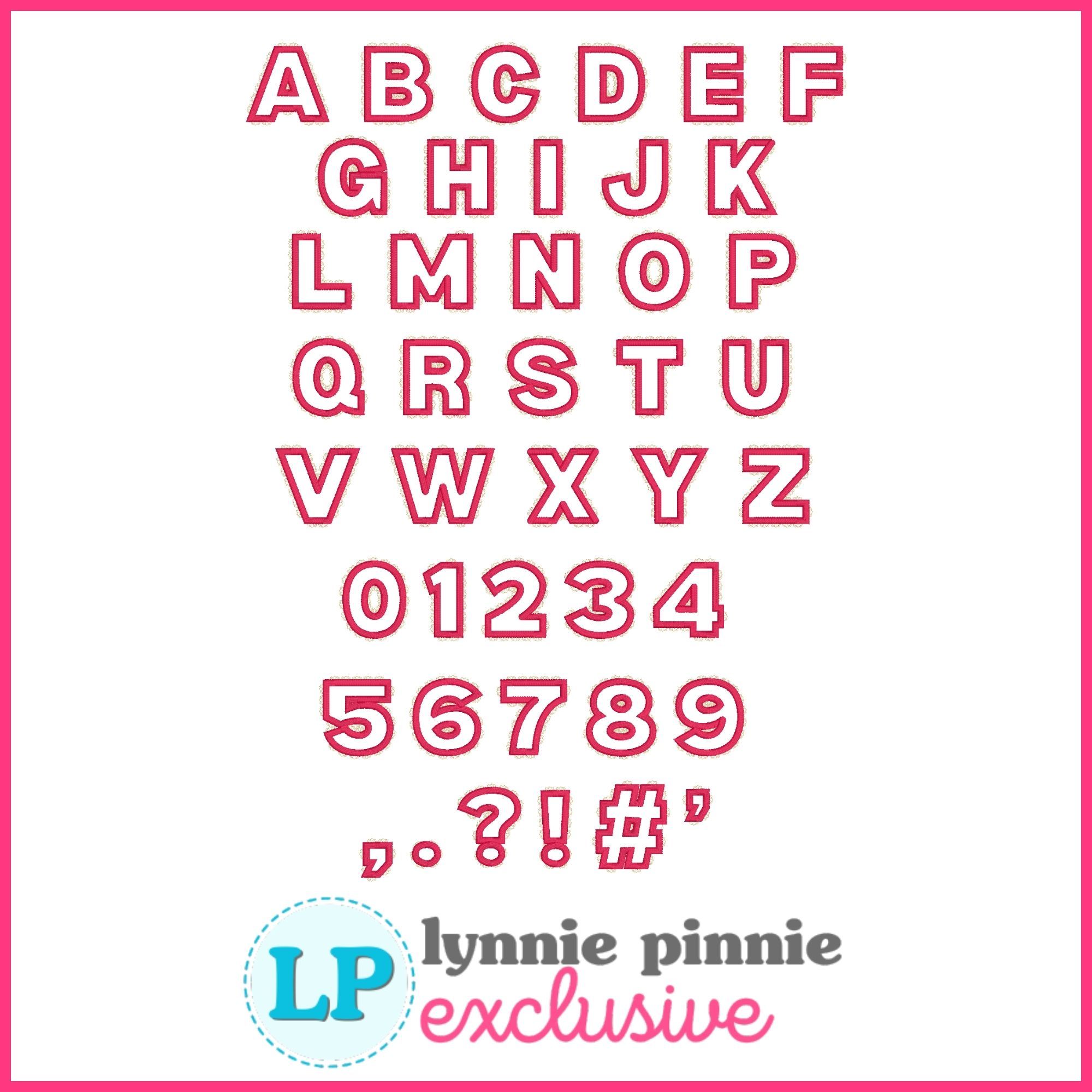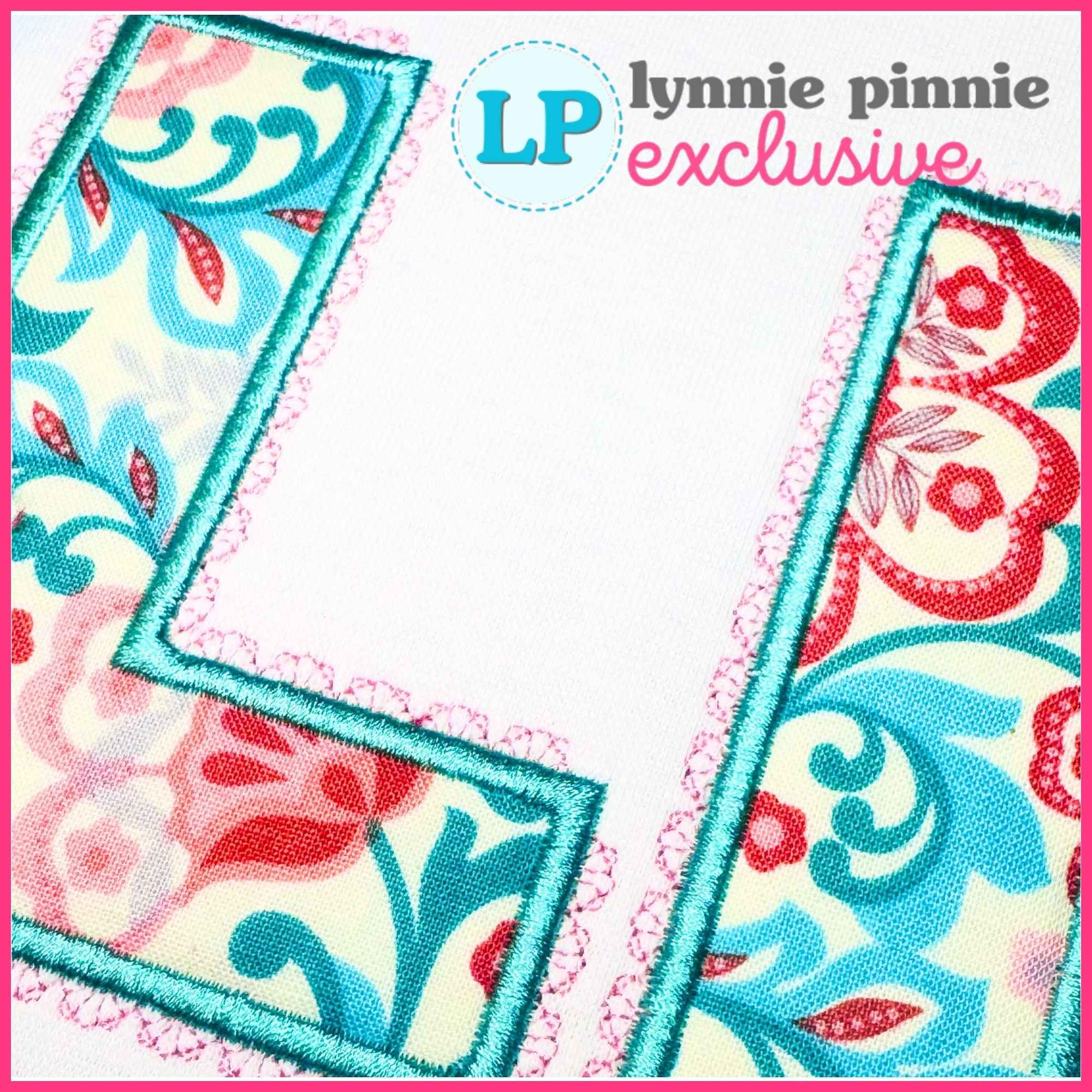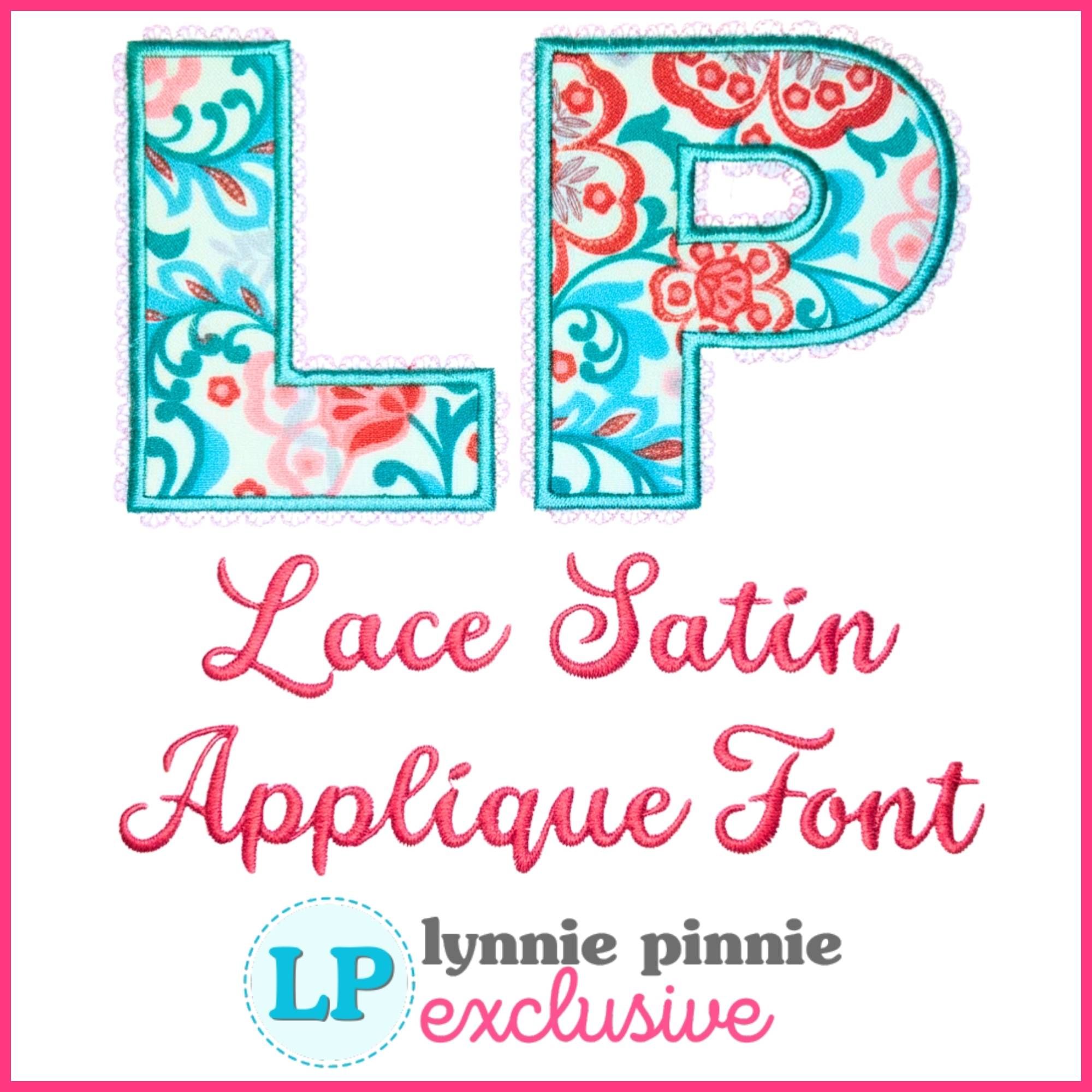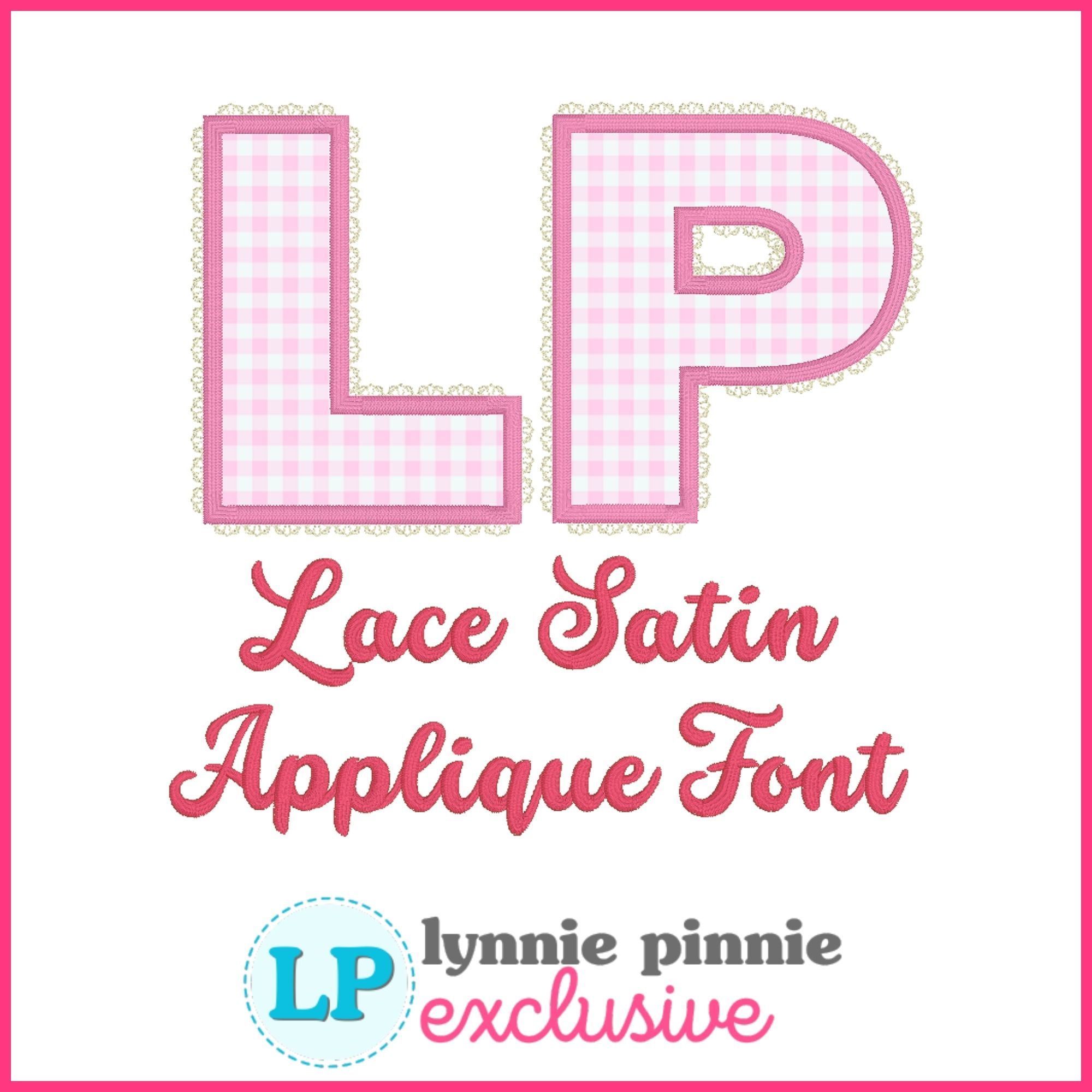
Add a soft, decorative finish to your projects with our Lace Edge Satin Stitch Font! This machine embroidery font features clean satin stitch lettering accented with a delicate lace-style edge for a beautiful, feminine touch.
Designed to mimic the look of lace trim, this font adds subtle texture and detail while still maintaining clean, easy-to-read lettering—perfect for names, monograms, children’s items, boutique apparel, gifts, and personalized projects.
This set includes uppercase letters, numbers, and punctuation, along with multiple sizes for maximum versatility across a wide range of embroidery projects.